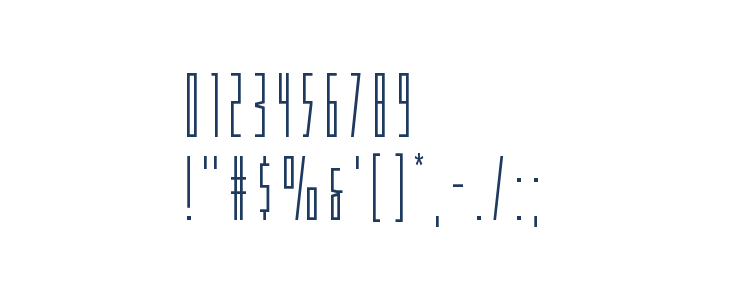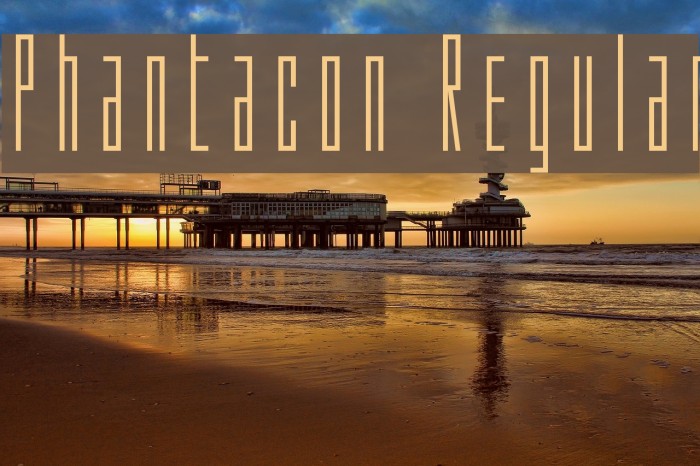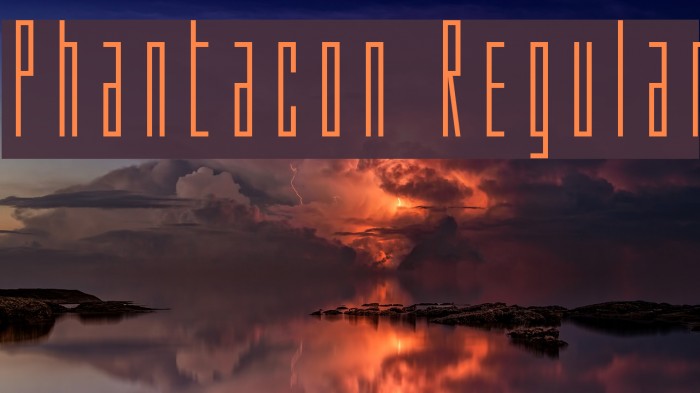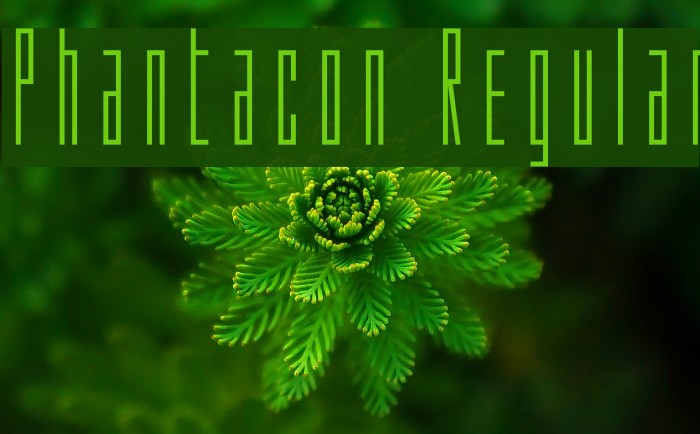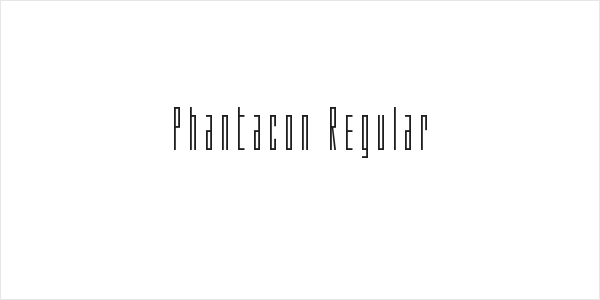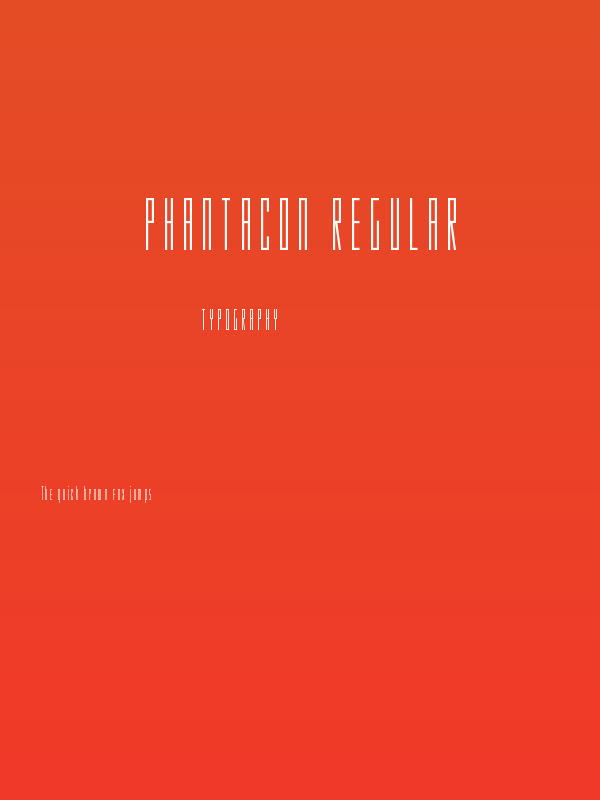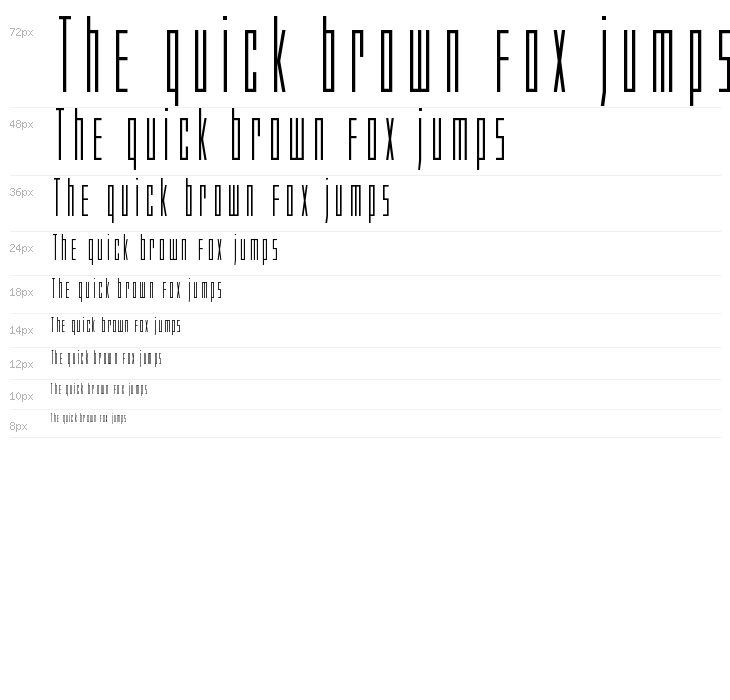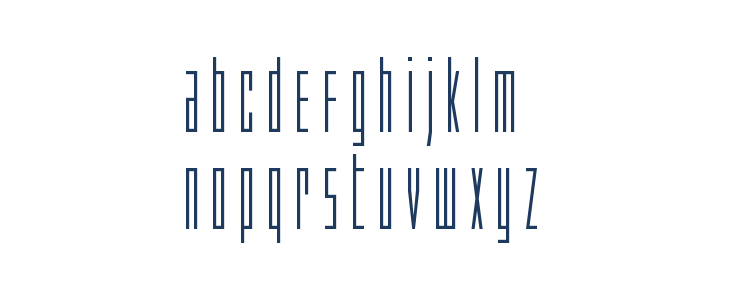
Phantacon Regular Font
Phantacon Regular Description
This font features a tall, narrow design with a distinctly modern and futuristic aesthetic. The characters are elongated and have a geometric structure, giving them a sleek and sophisticated appearance. The uppercase letters are particularly striking, with sharp angles and clean lines that contribute to the font's unique style. The lowercase letters maintain the same narrow form, ensuring consistency throughout. Numbers and special characters are designed to match the overall aesthetic, making this font versatile for various applications. Its minimalistic yet bold design makes it suitable for projects that require a contemporary and eye-catching typeface.